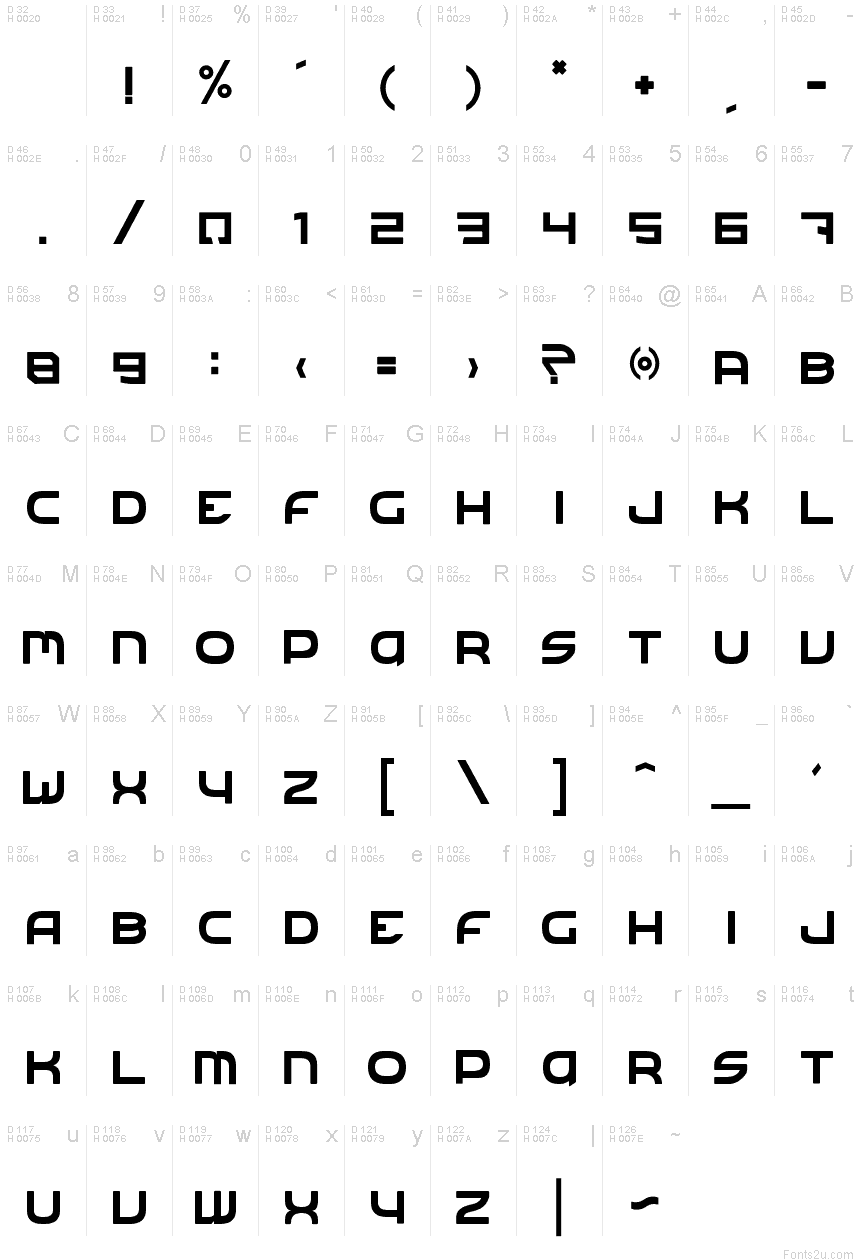
Technical Forest
Technical Forest by sgt. Swierq is a free futuristic display sans serif built from broad geometric strokes and sharply simplified forms. Rounded outside corners soften the rigid framework.
A technology brand could use its machine-cut lettering for hardware packaging, launch graphics, or a compact wordmark. The solid silhouettes also fit esports events and science-fiction entertainment, where squared joins and open-sided forms echo screens, consoles, and industrial panels. It speaks most directly to gaming, esports, and consumer electronics audiences looking for a clean retro-future style rather than ornamental sci-fi lettering.